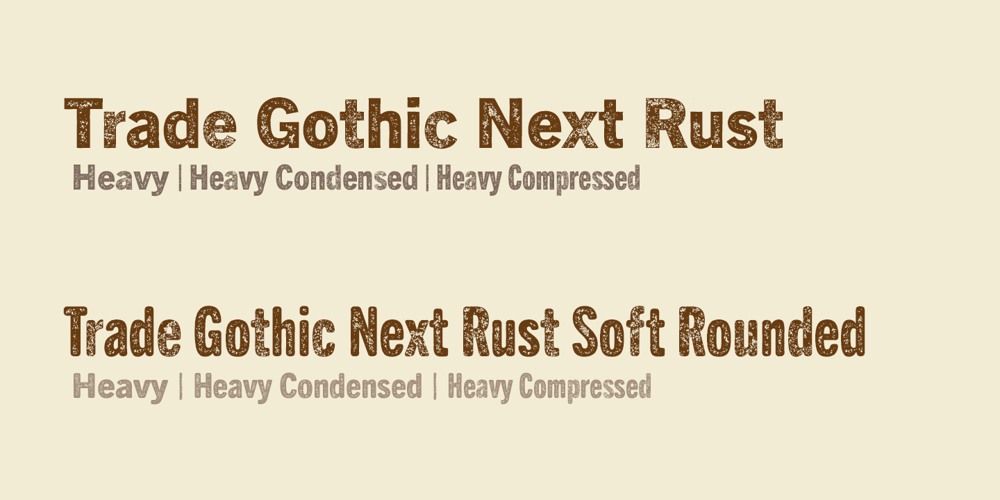
Trade Gothic Next Rust
Trade Gothic Next Rust font
Trade Gothic Next Rust Font Family was designed by Akira Kobayashi and published by Linotype. Trade Gothic Next Rust contains 6 styles and family package options. Trade Gothic Next is Akira Kobayashi’s 2008 revision of Jackson Burke’s 1948 design. Developed over many years, the original Trade Gothic was filled with many inconsistencies. Under the direction of Akira Kobayashi, Linotype’s Type Director, the american type designer Tom Grace, a graduate of the MA Typeface Design in Reading, was commissioned to redesign, revise, and expand the Trade Gothic family. Kobayashi and Grace refined many details such as the terminals and stroke endings, symbols, and the spacing and kerning. Moreover, there are newly added compressed widths and heavy weights perfect for setting even more powerful headlines. The Regular weight has been beefed up making it stronger and more robust in text settings. Trade Gothic is a staple of the advertising and newspaper industries, and now Trade Gothic Next brings more features and better quality for today’s astute typographers. In addition several weights are available as soft rounded versions.